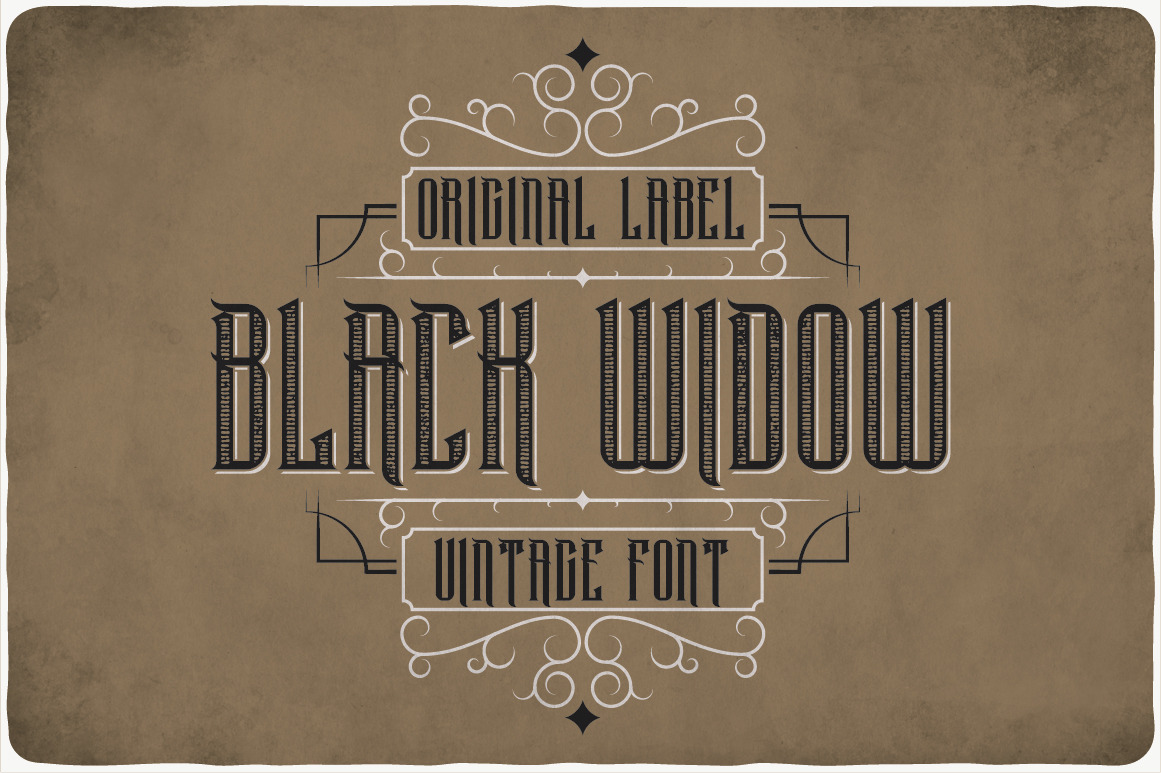
Black Widow Typeface
Introducing a vintage look label typeface named "Black Widow". It's made in strong and vintage label style. Typeface is good viewed on any labels design.
- 5 fonts in complect with special effects, plus aged version
- You can mix color of base font, texture and shadow effect (look at 4-th screenshot)